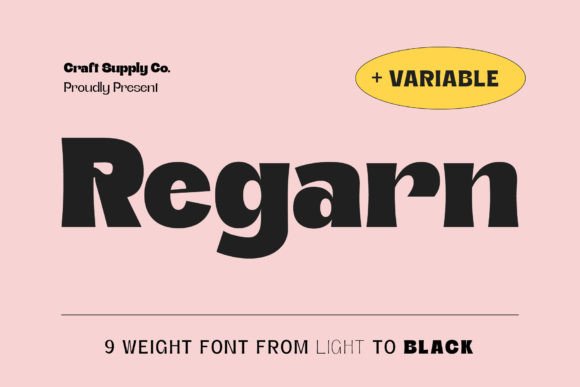
Presenting the Regarn Font, an awe-inspiring creation that will transform your digital canvas into a masterpiece. This captivating display font is crafted with meticulous precision, boasting an alluring blend of modernity and timeless elegance.
Regarn is your go-to font for unforgettable ebooks on Canva. Its unique character dances across the page, capturing the essence of your words and captivating your readers with its charm. Prepare to bask in the admiration of your audience as they devour your creations, spellbound by the allure of Regarn.
This multifaceted font transcends the boundaries of mere text, becoming an extension of your creativity. Whether you're crafting enchanting invitations, captivating social media posts, or designing eye-catching logos, Regarn empowers you to make a statement that lingers in the minds of all who encounter it.
Imagination takes flight with Regarn, as its versatility knows no bounds. Let your creations soar to new heights, carried by the wings of this extraordinary font. Experience the joy of seamless pairings, where Regarn harmonizes effortlessly with any design aesthetic, enhancing your projects with a touch of sophistication.
Embrace the power of Regarn today and witness the transformation it brings to your creative endeavors. Prepare to be amazed as your designs blossom into works of art, captivating hearts and igniting imaginations. With Regarn by your side, the possibilities are endless – let your creativity shine brighter than ever before!